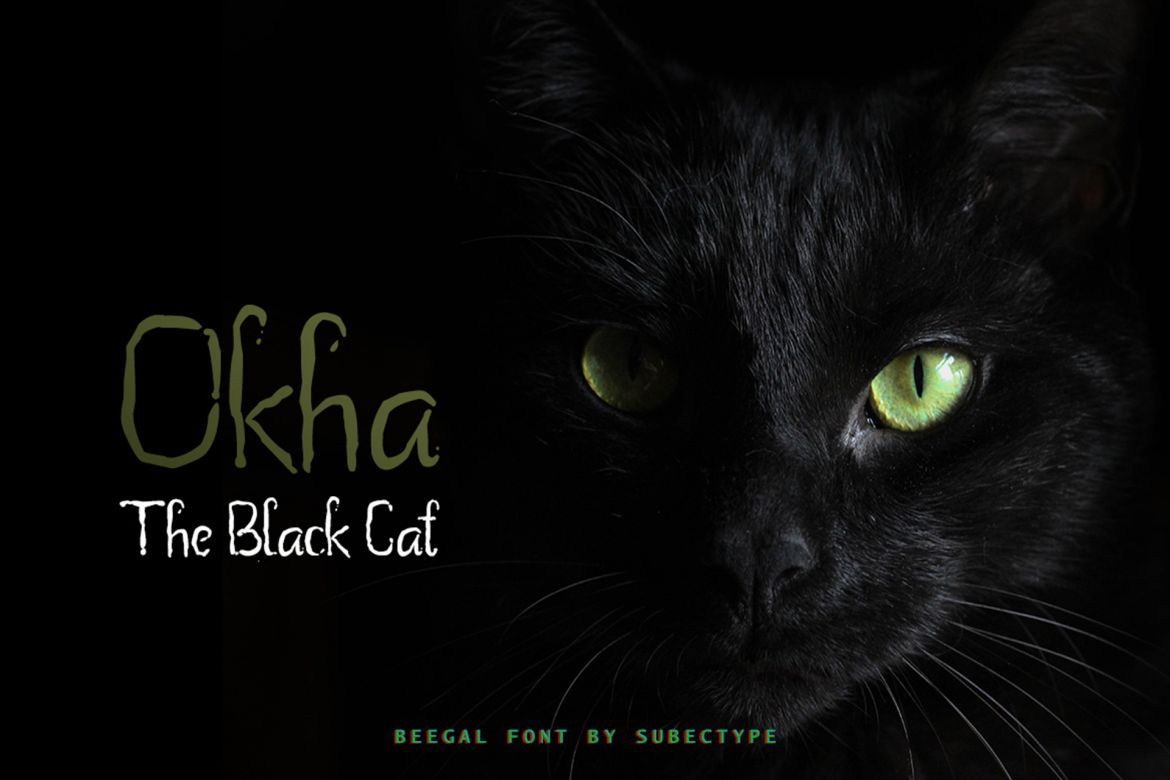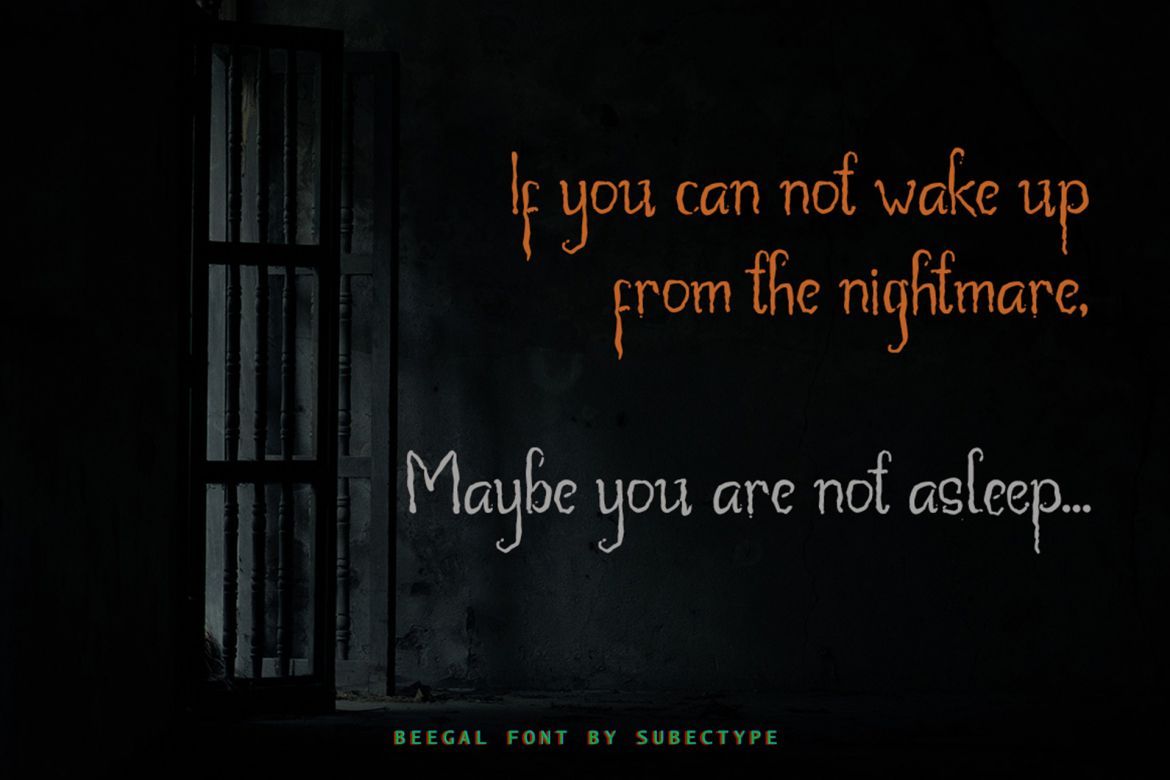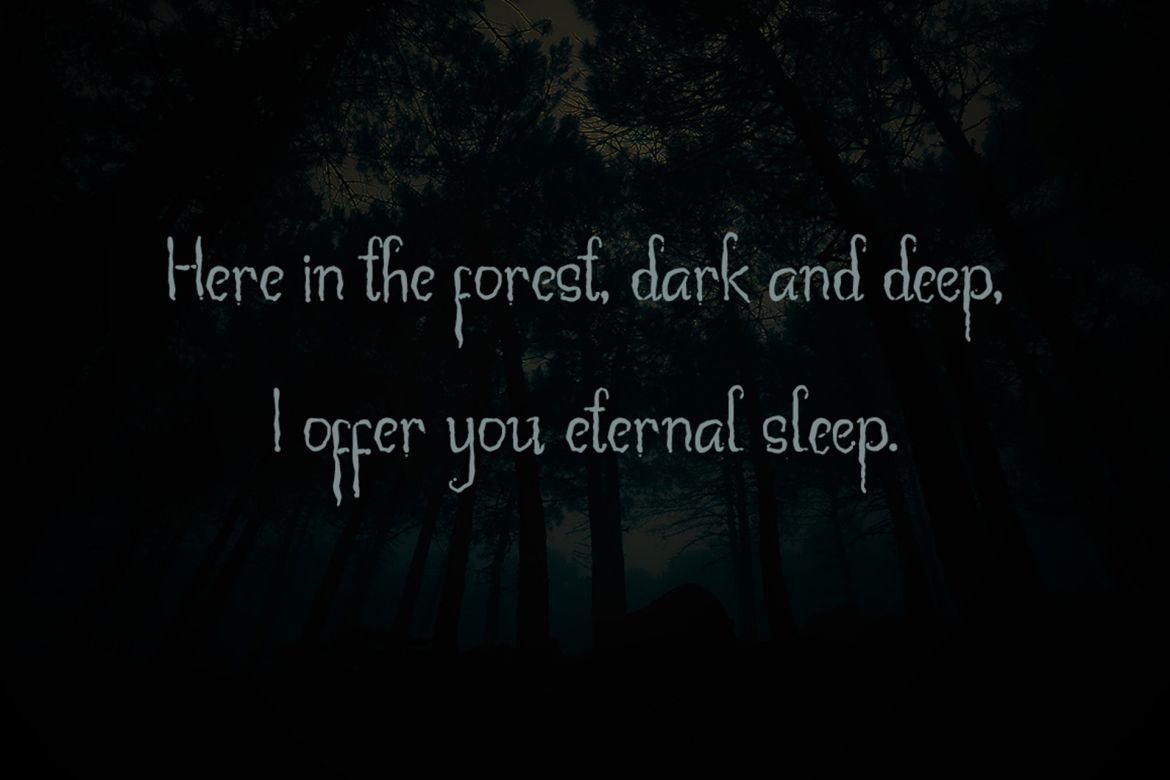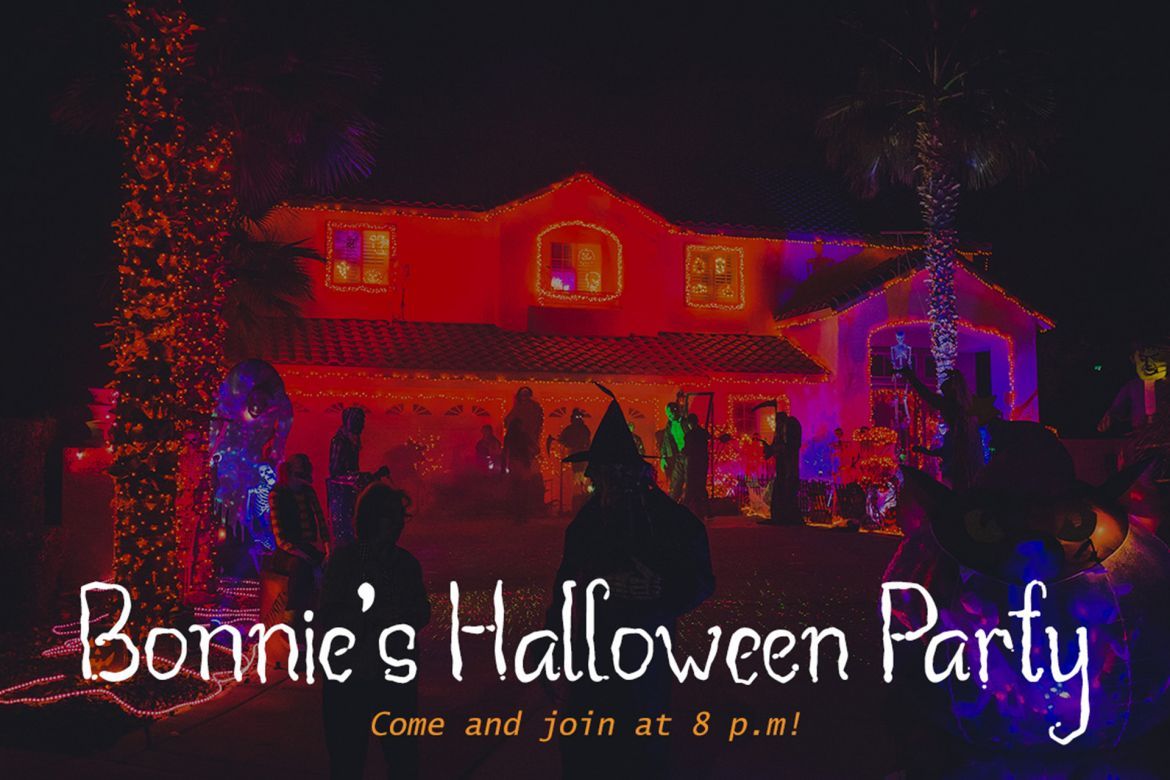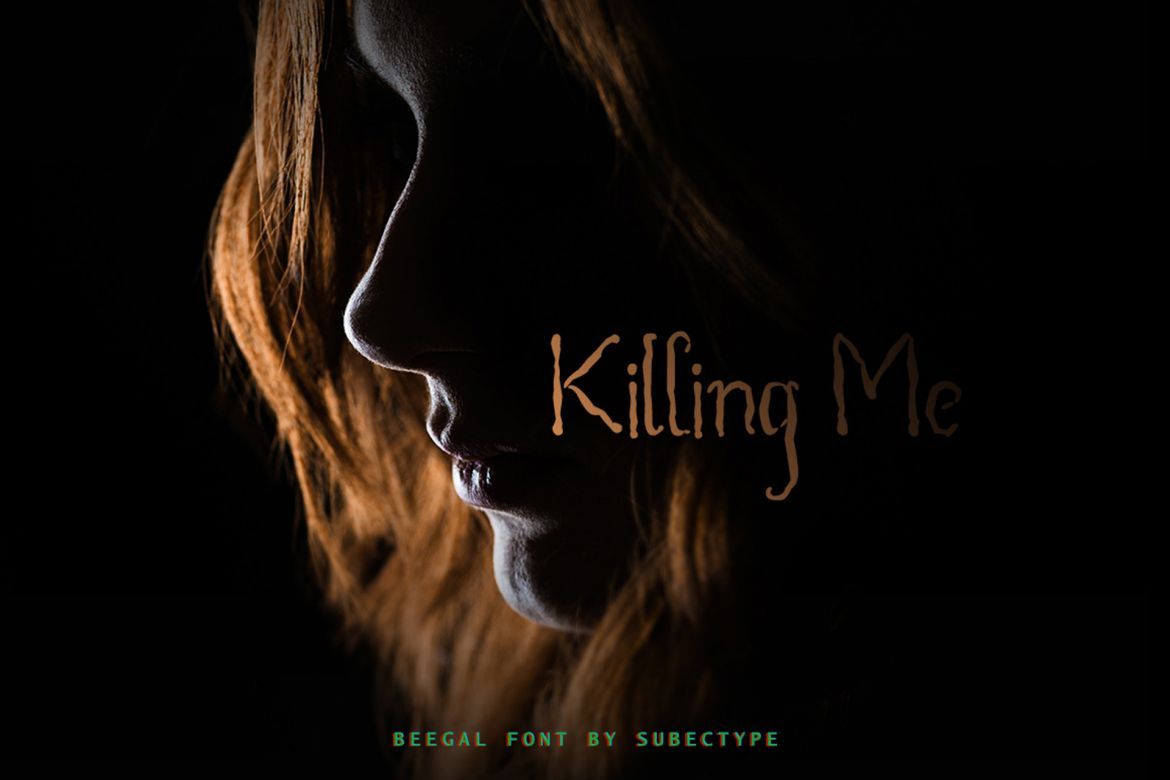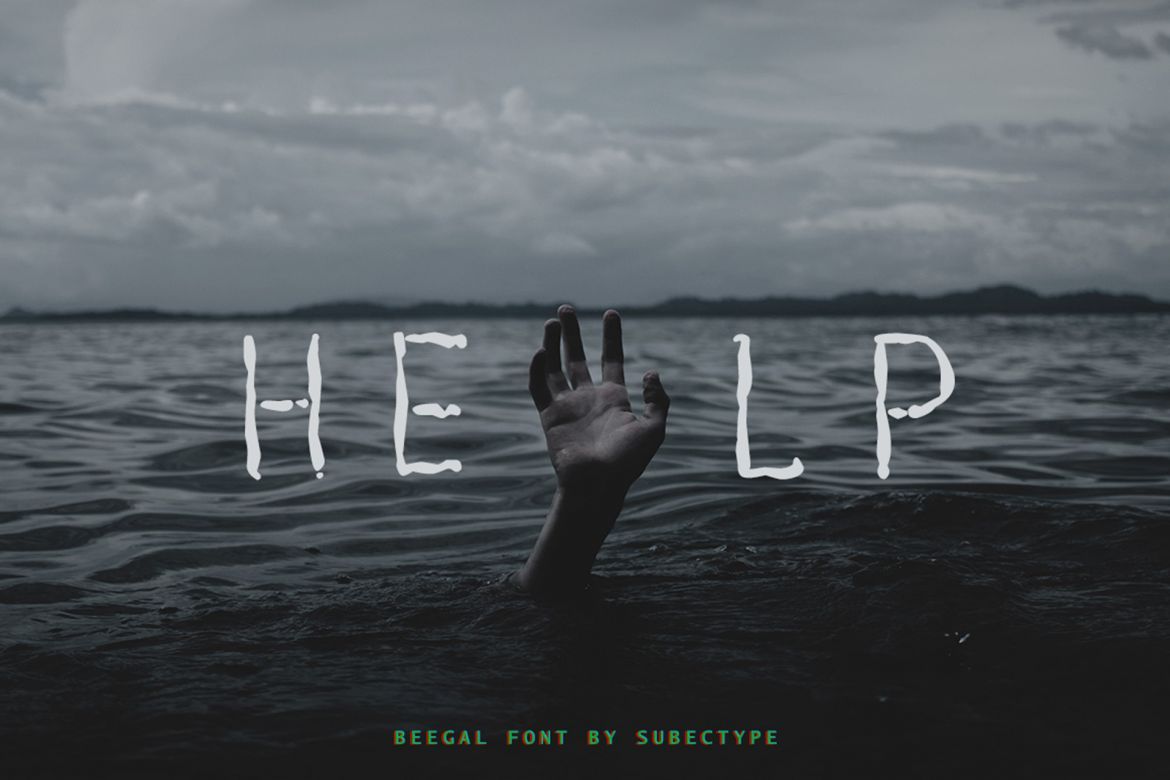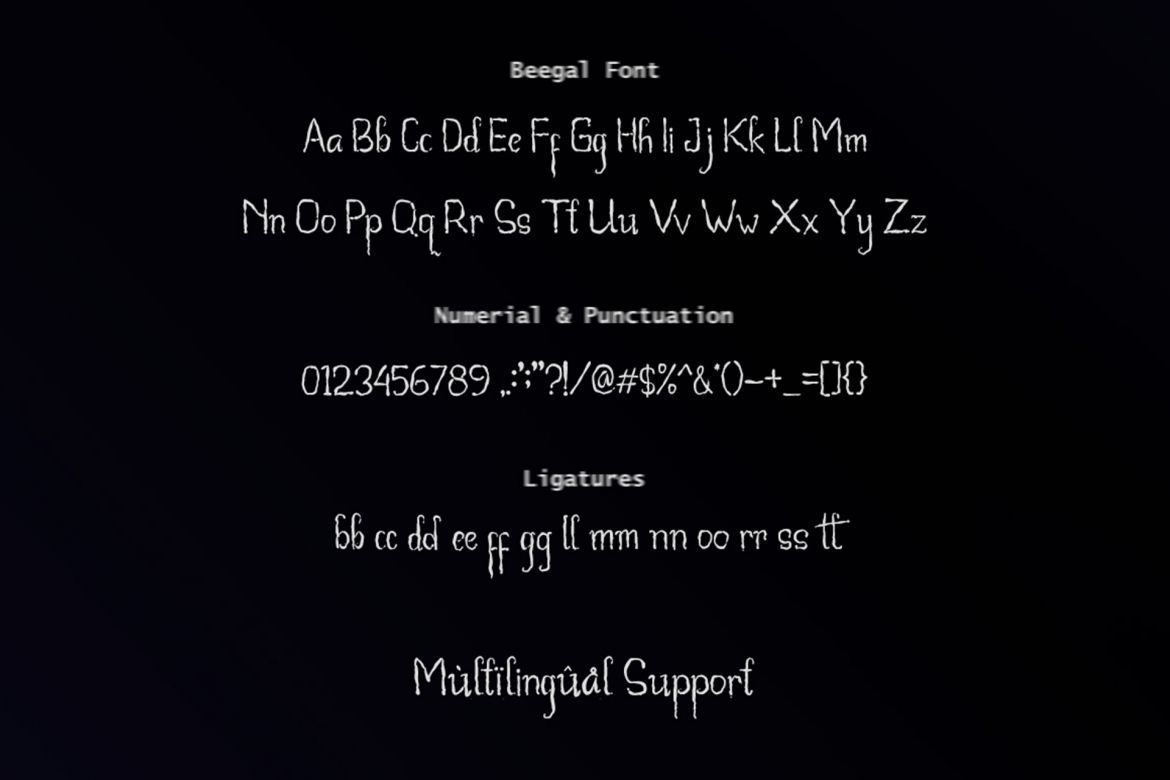
Beegal Horror Font
The Beegal is a font with a creepy style. It’s perfect for your creepy themed designs!
• creepy style
• each font has stylish handwritten style